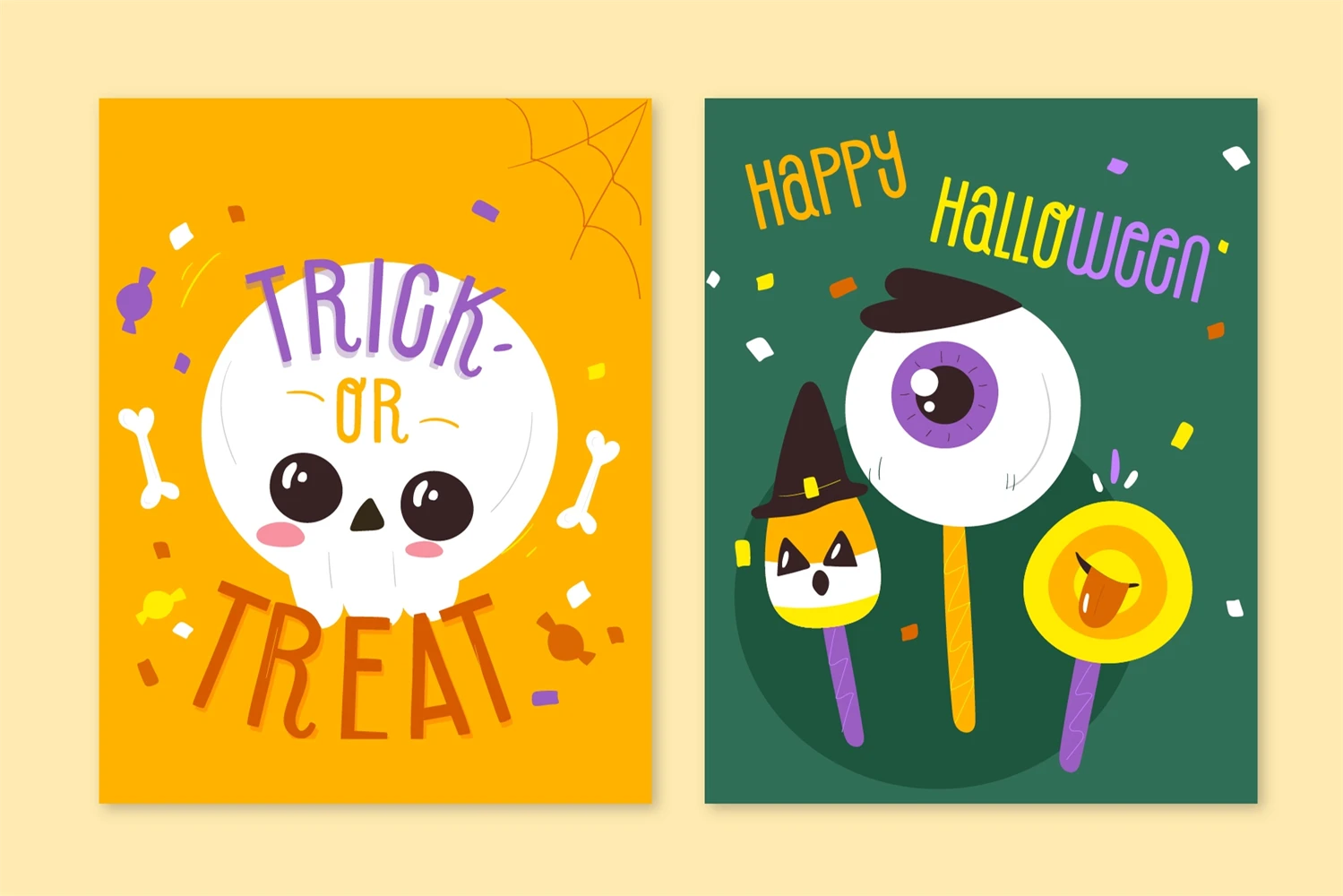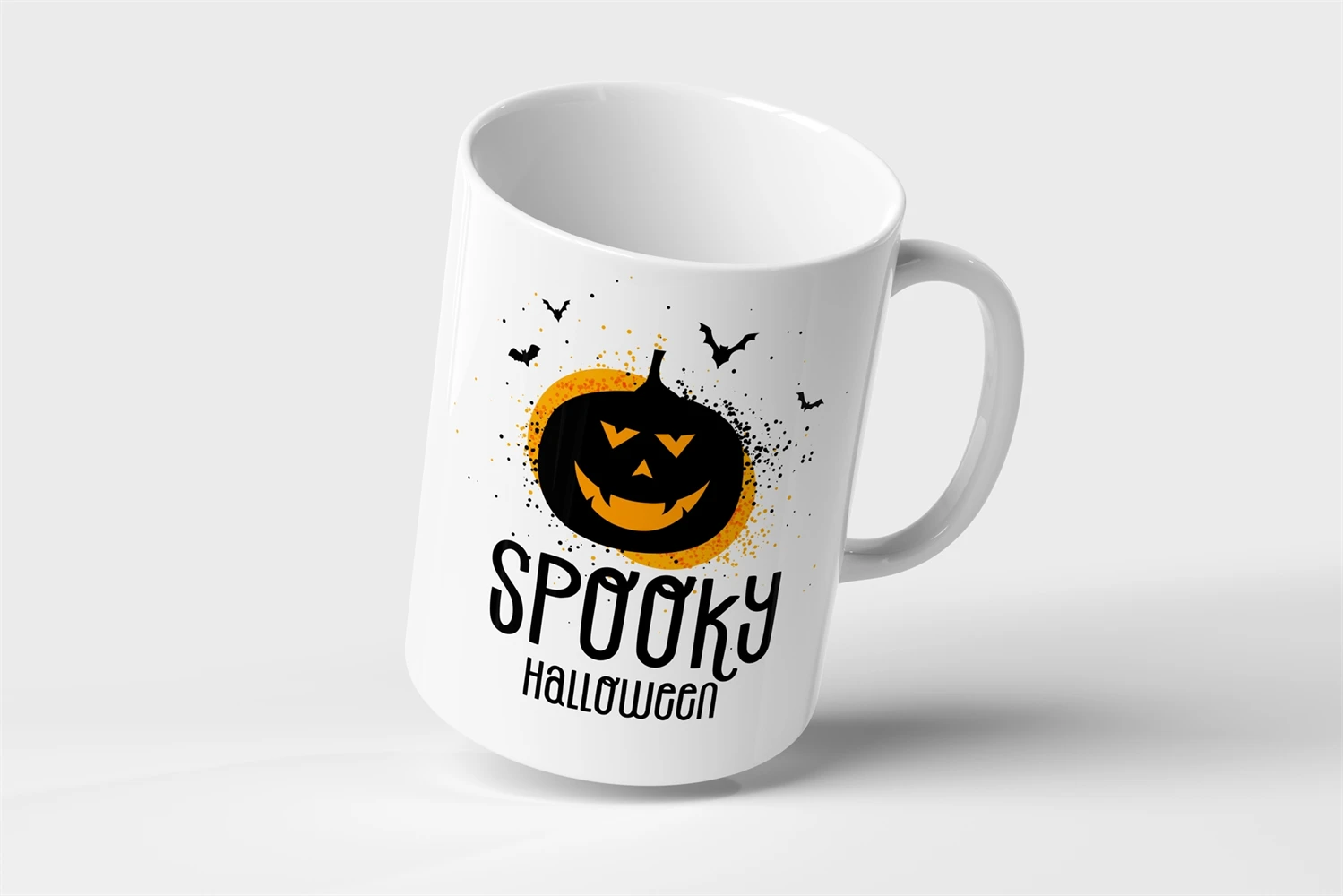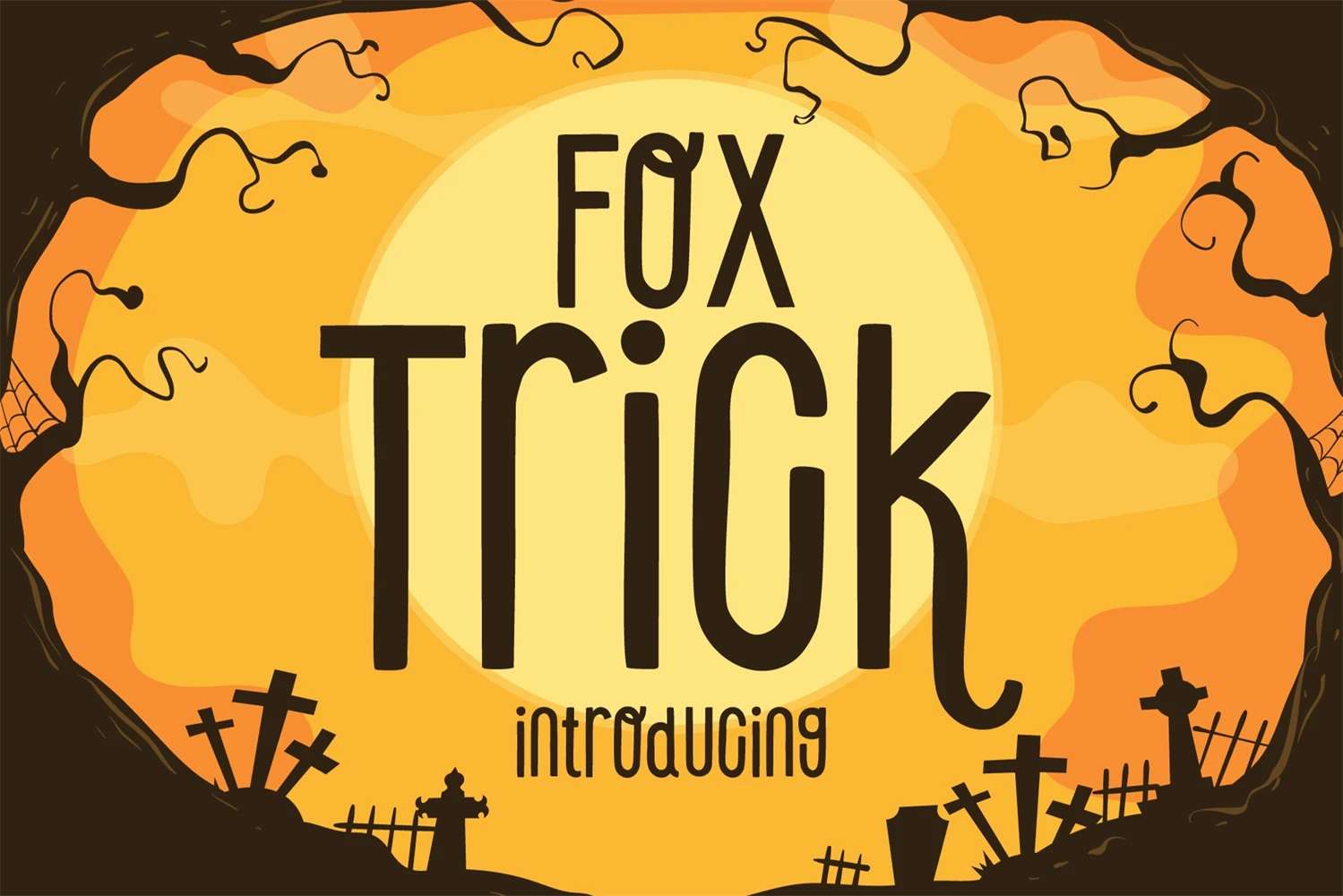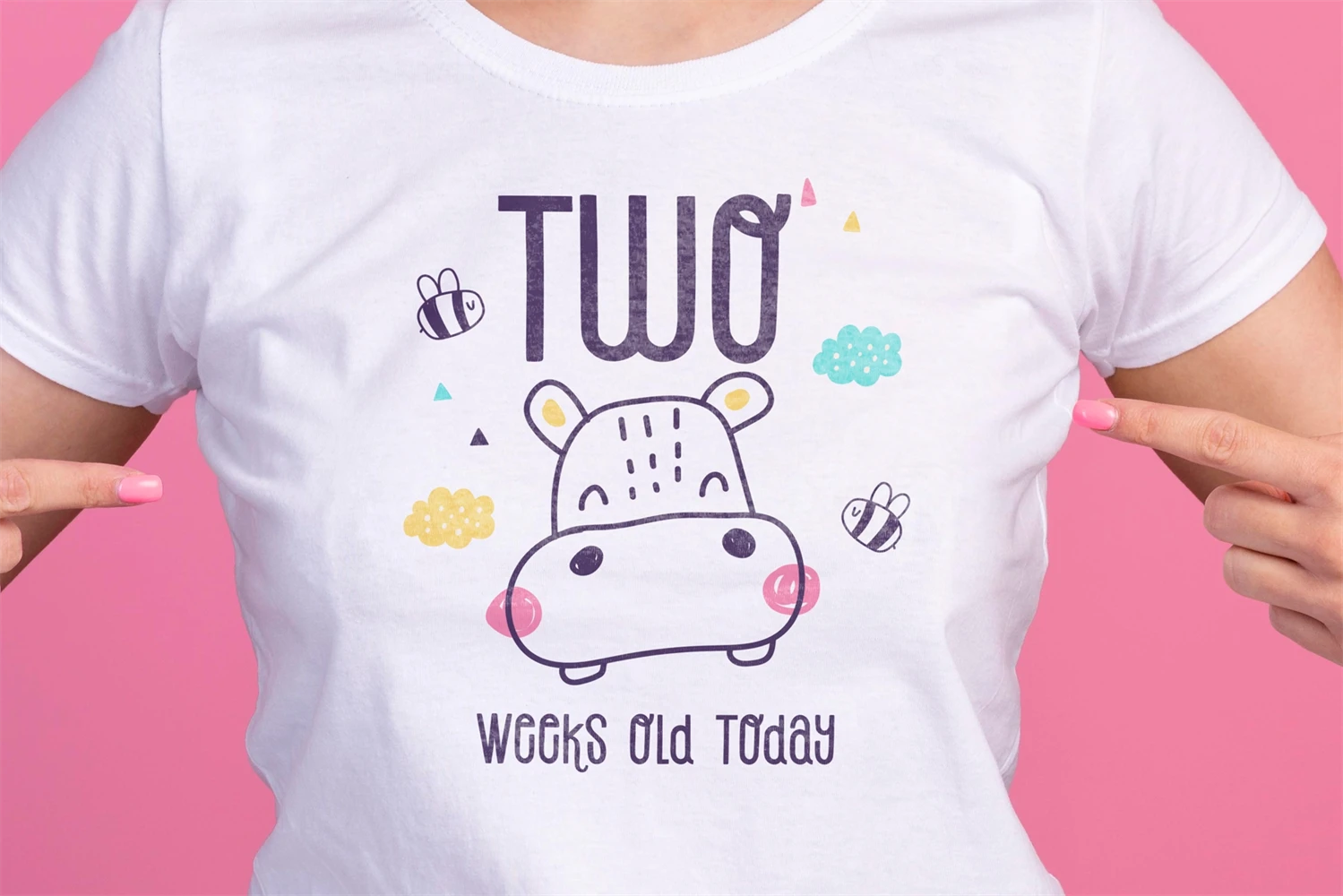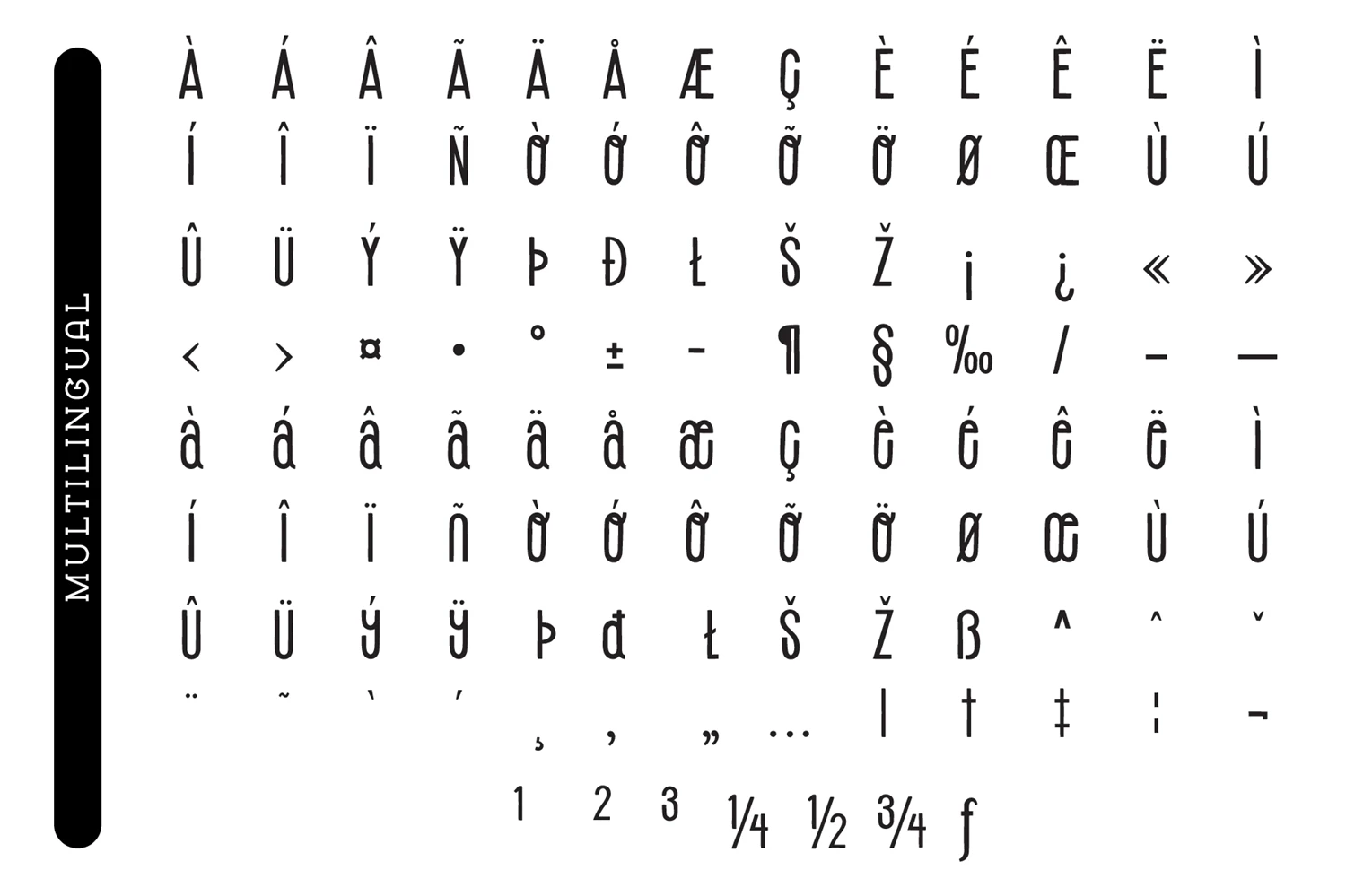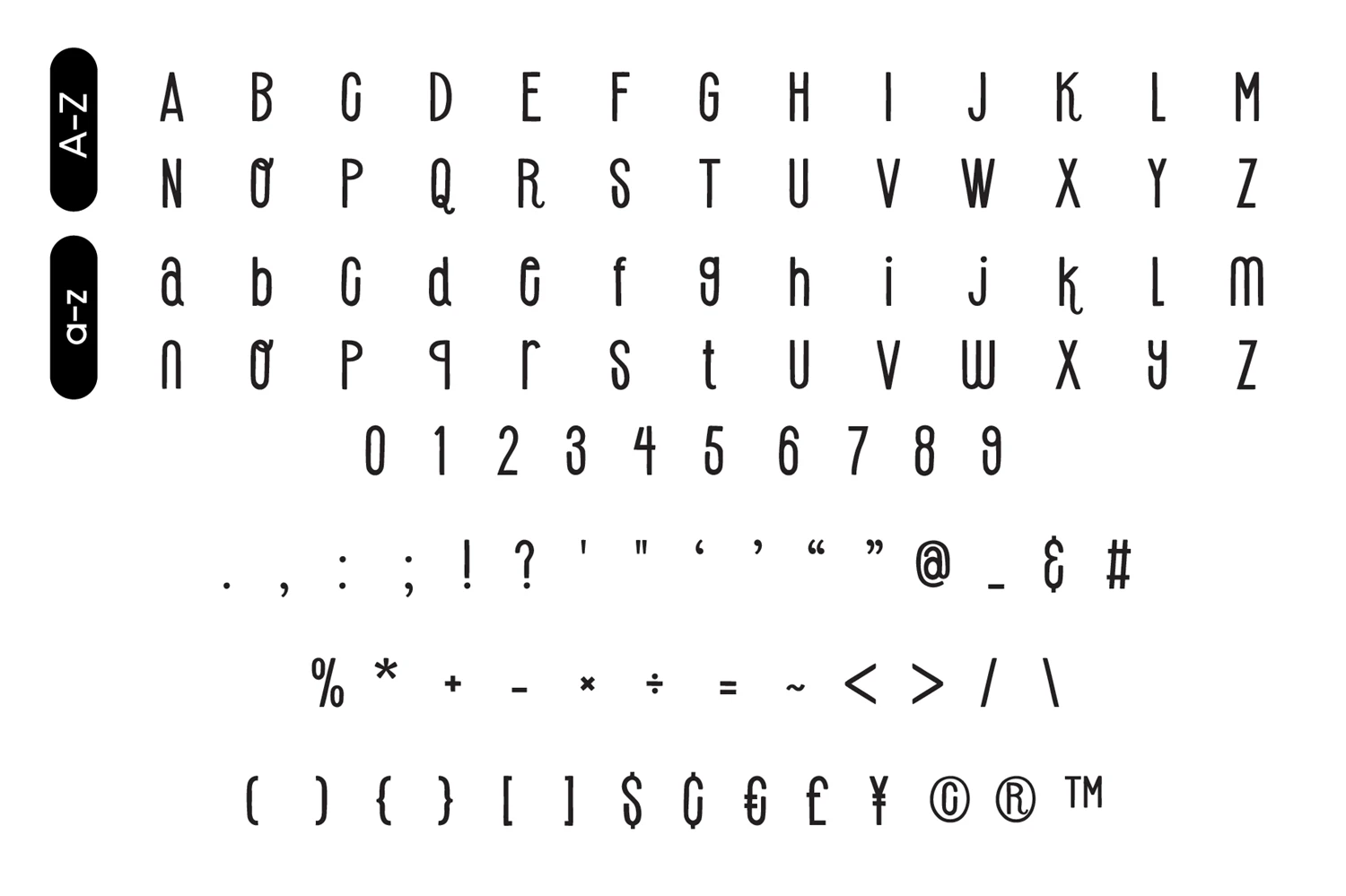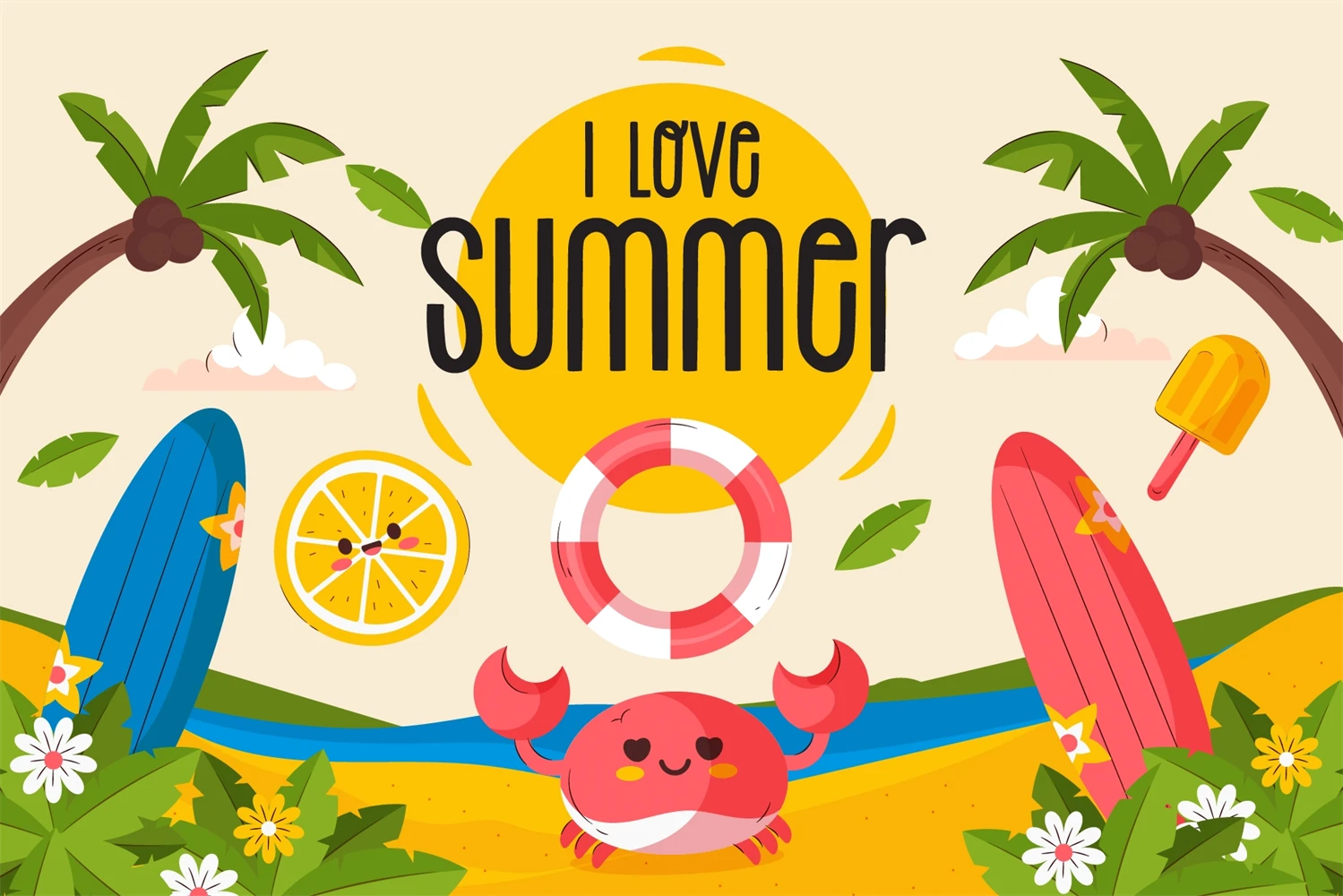
Fox Trick is a handwritten Slab Serif Fonts. cool, fun, and cute font. Suitable for a variety of designs such as Halloween, and childrens themes. It is perfect for logos, t-shirts, papers, print designs, website headers, photo frames, flyers, music covers, posters, image sliders, and much more.